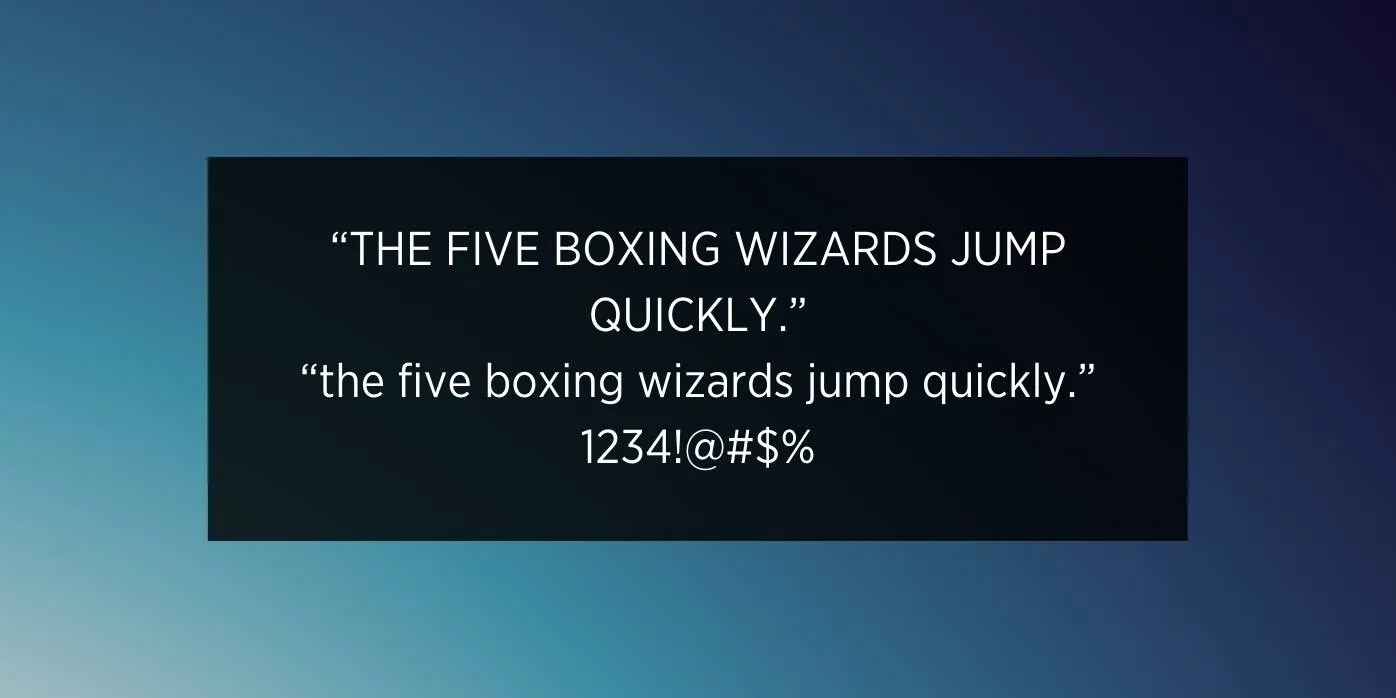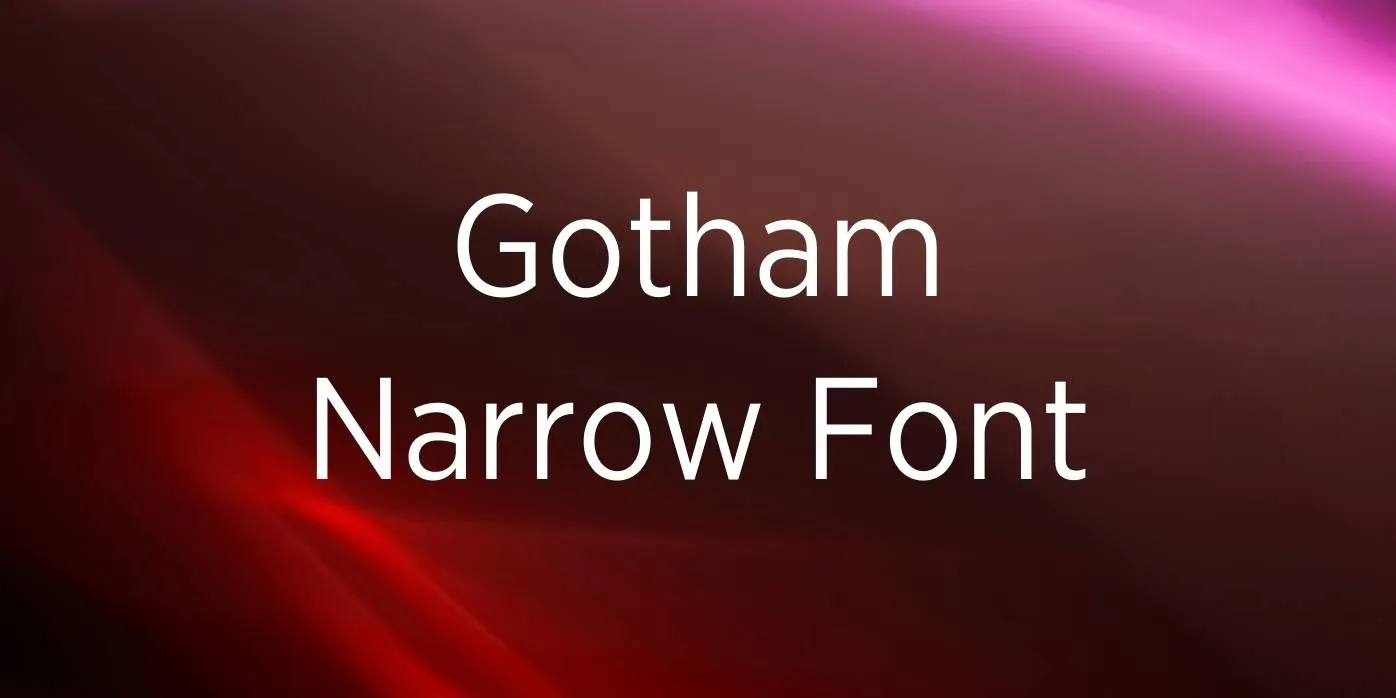
Gotham Narrow Font
In this post, we are consulting on a very famous typeface known as Gotham Narrow Font. It belongs to the Sans Serif font family. This typeface was created by Tobias Frere-Jones. This stunning font was released in the year 2000.
Gotham Narrow Typeface is a sans-serif typeface. It is available in seven weights: light, book, medium, bold, black, extra black, and ultra. This staggering font family includes Book Italic, Bold Italic, Light Condensed, Medium Condensed, and Black Condensed. All these fonts have good readability.
And he has done a great job in making this typeface what it is today! Many people use it for both digital and print designs. Its generator tool is best for many designs.